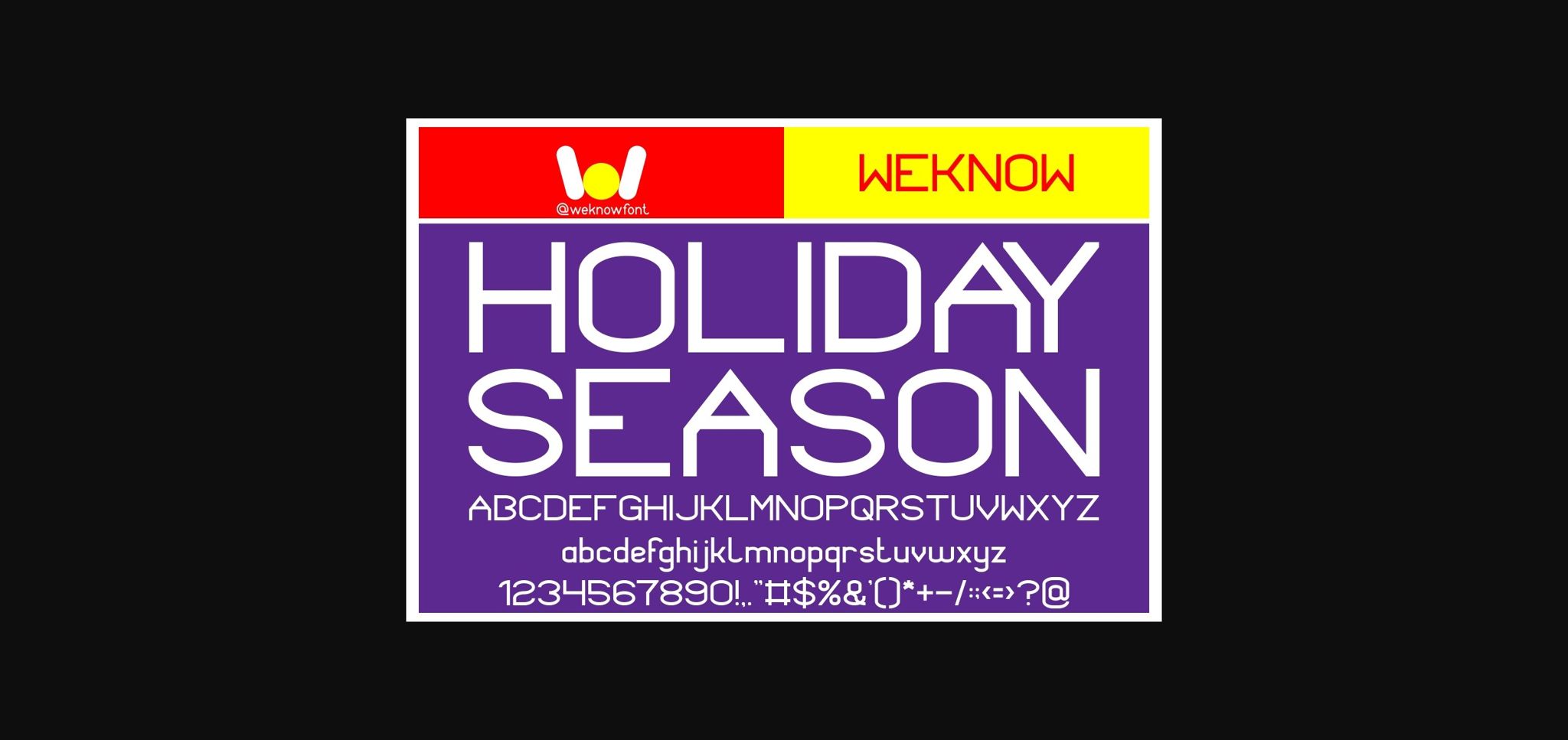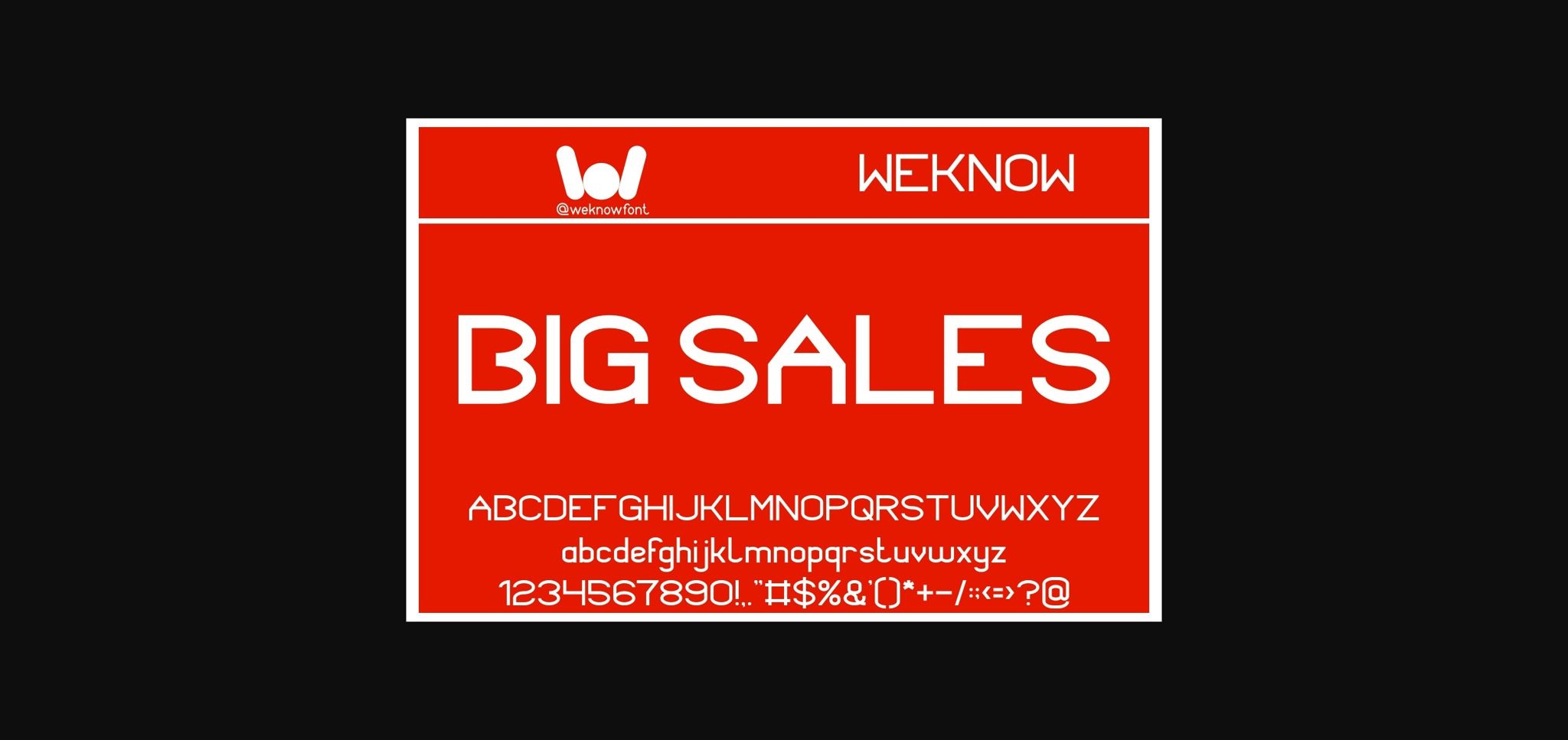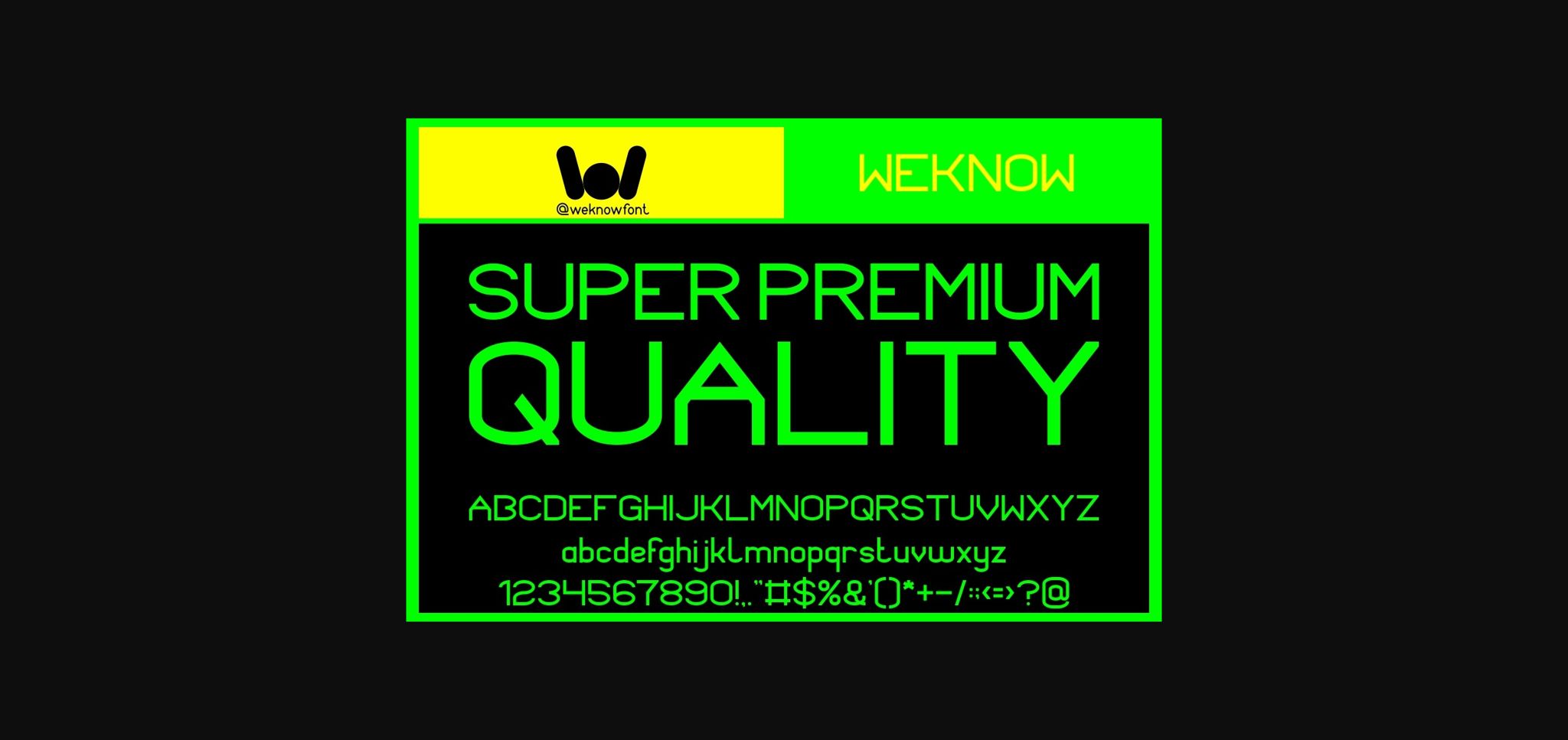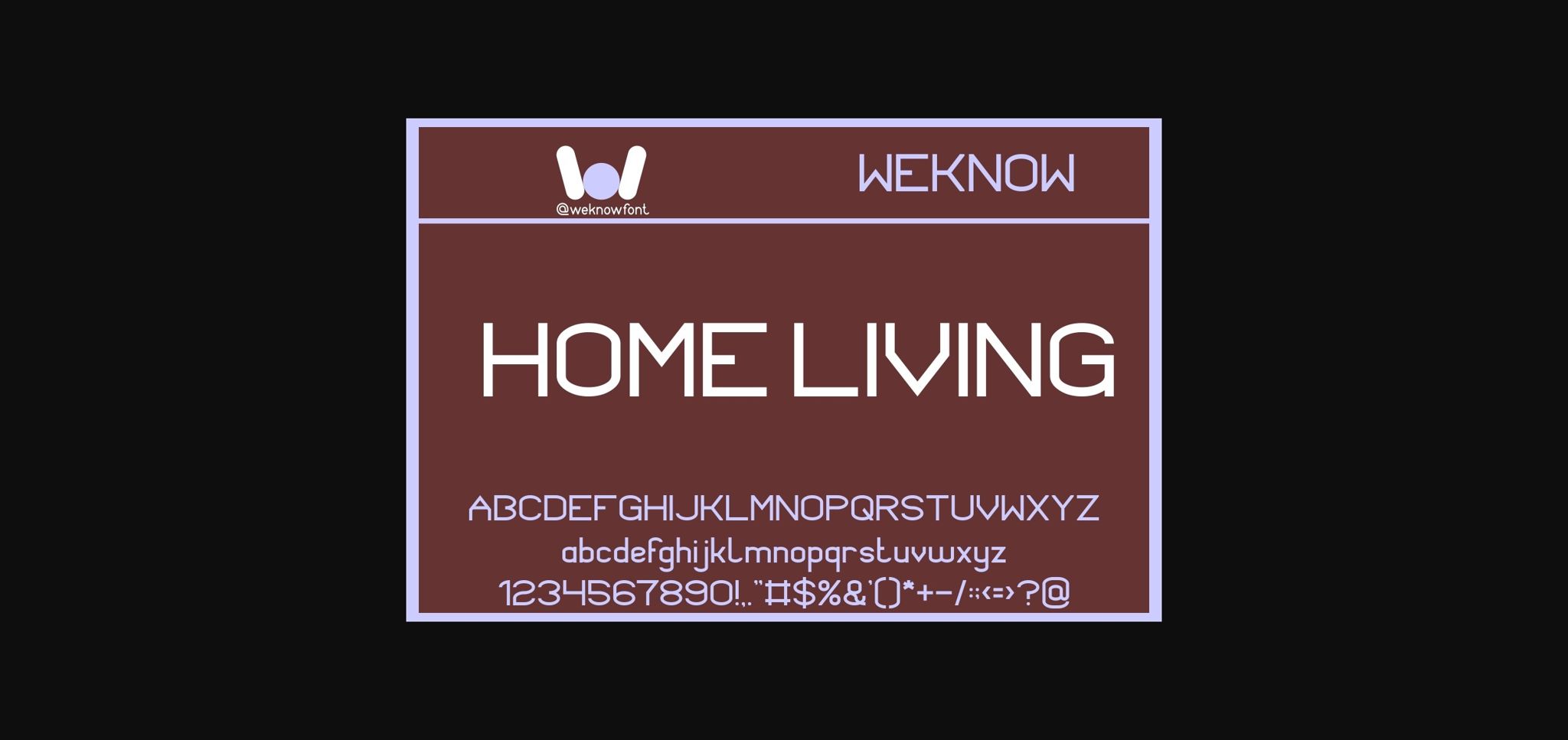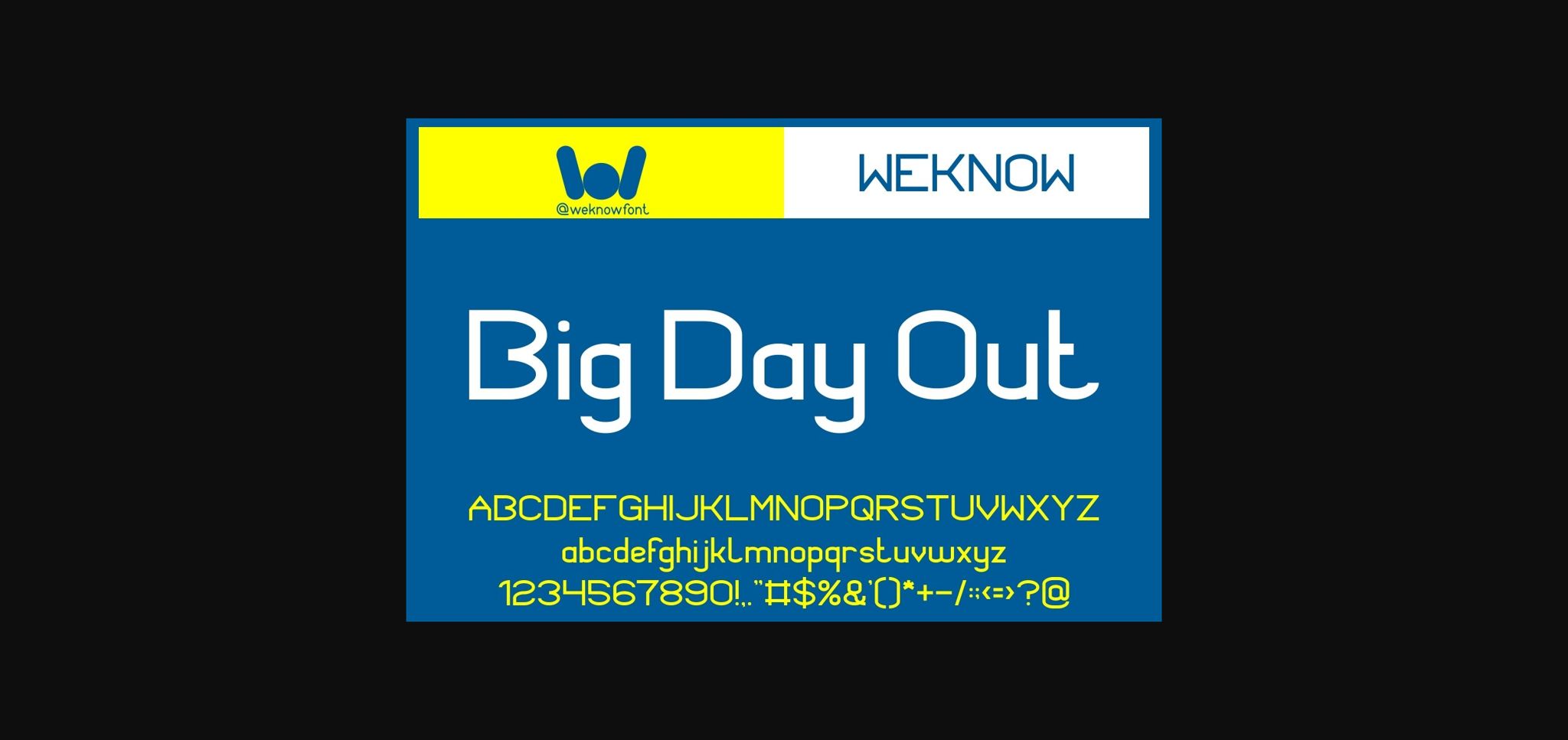
About Holiday Season Font
Holiday Season is a basic sans serif font suitable for logos, headlines, the apparel industry, posters, magazines, books, comics, cartoons, or any of your creative design projects.